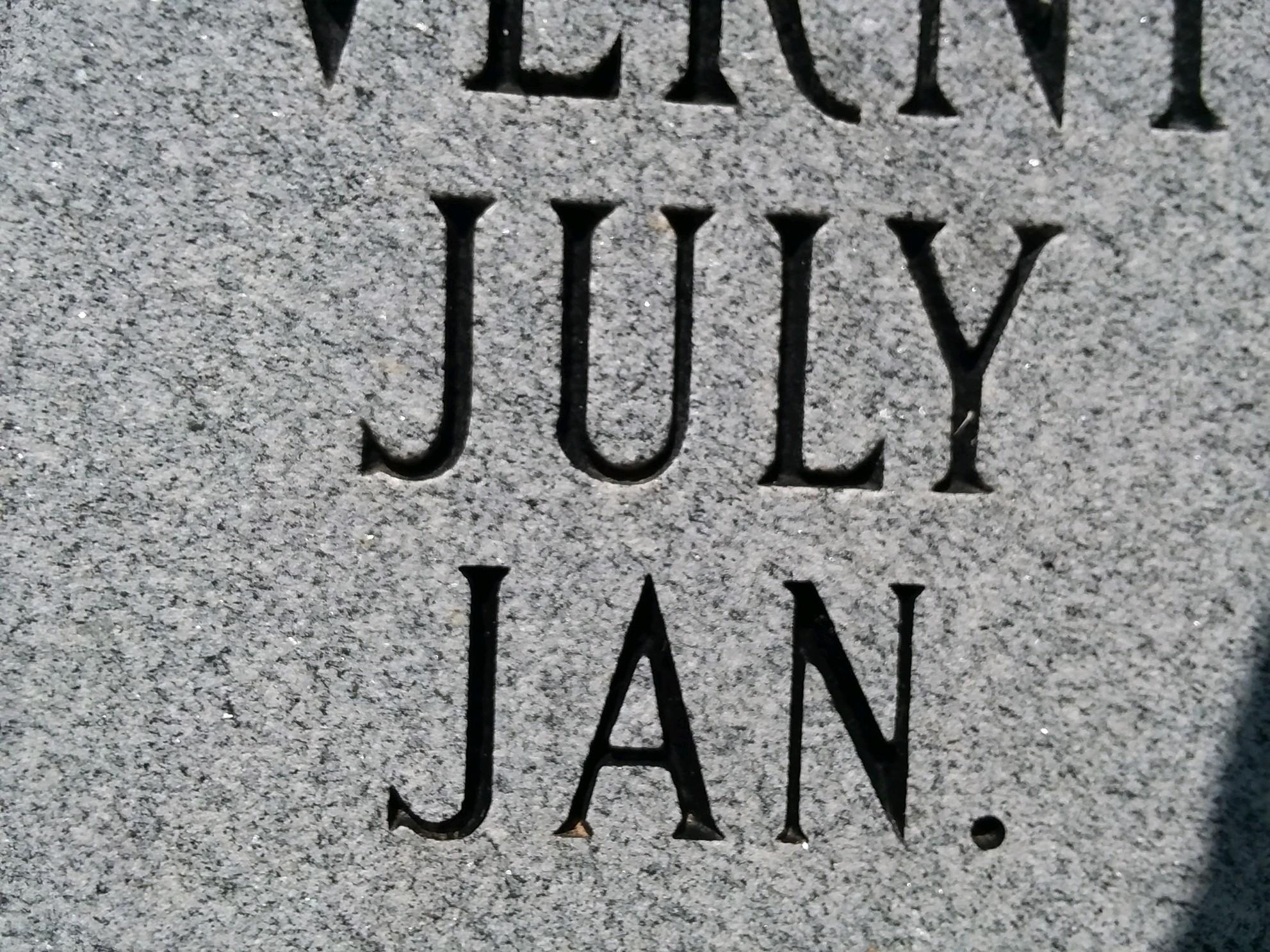
This appears to be the metal Spacerite Condensed Roman alphabet, which has been given angled serifs. This happens when the stencil cutter takes shortcuts on cutting the serifs, and is often referred to as “handcut”.
The MLC has a font to match the handcut letters: https://www.monumentletteringcenter.com/product/mlc-spacerite-condensed-roman-handcut/
Because the letters are cut by hand there will always be inconsistencies and sometimes the thickness will vary as well, but the letter geometry should be similar.